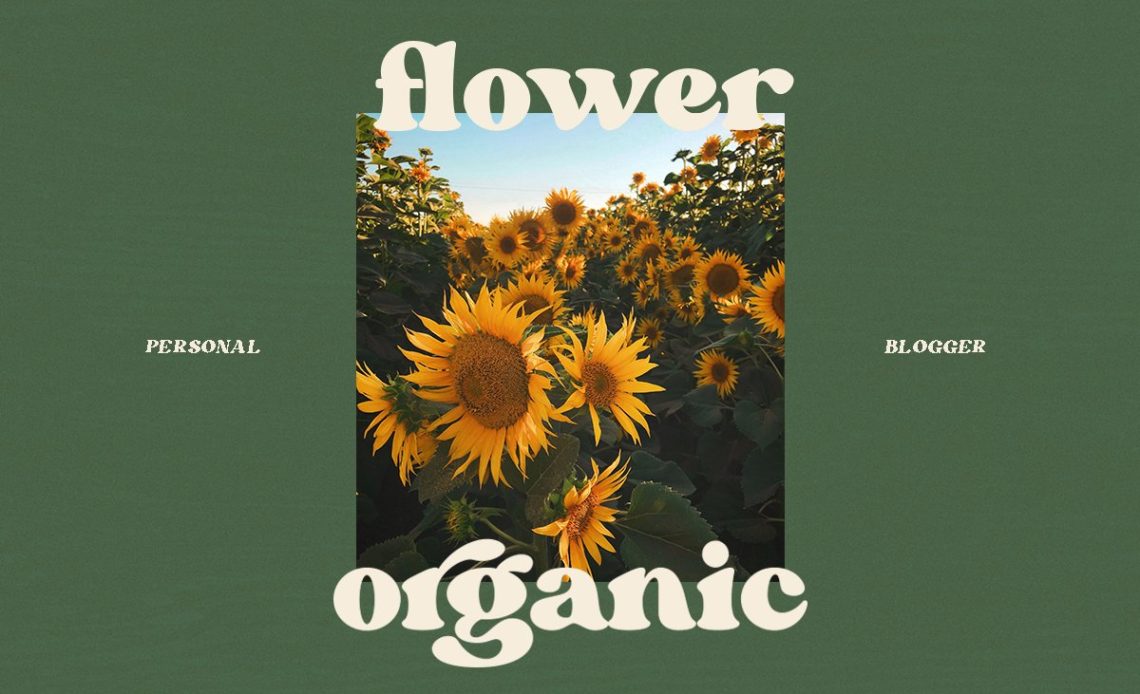
Looking for a new font to add to your collection? Look no further than Margin - Retro Serif Font, created by Dharma Sahestya. This stylish and bold font features thick curves that give off a groovy 70s vibe, while the serifs bring a touch of tradition to the design.
Margin is the perfect addition to any nostalgic moodboard or vintage logo, and comes complete with unique lower and uppercase letters, numbers, punctuation, and multilingual support. Plus, with both regular and italic versions included, you'll have plenty of flexibility when creating your next project.